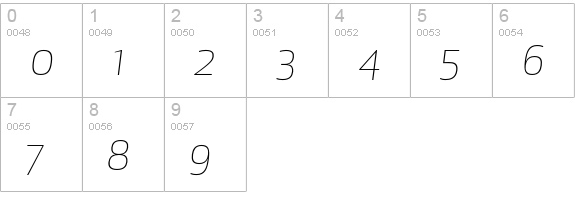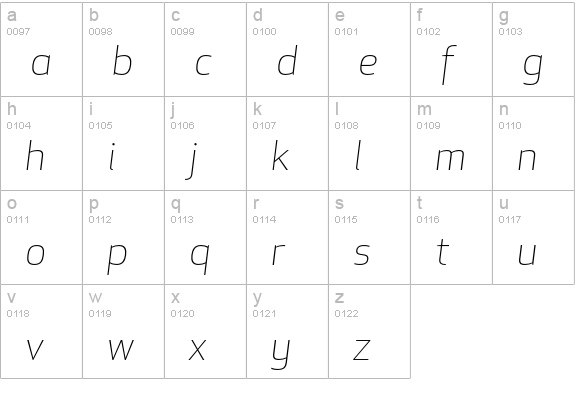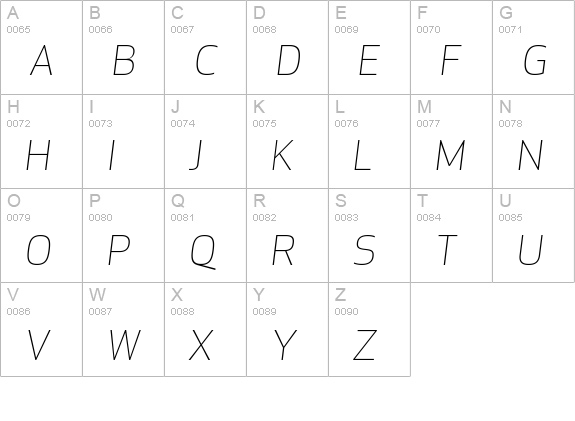
ApexNew-LightItalic Font Details
Introducing ApexNew-LightItalic, a sleek and sophisticated font that exudes elegance and modernity. Its delicate curves and graceful strokes make it perfect for adding a touch of sophistication to any project. The light italic style gives a subtle and refined appearance, making it ideal for a wide range of design applications. This beautiful font is not only stylish but also versatile, making it suitable for various design projects such as branding, editorial design, and web design. Whether you are creating a logo, a poster, or a website, ApexNew-LightItalic will bring a touch of class to your work. And the best part? ApexNew-LightItalic is available for free download at FontsMarket.com. So go ahead and elevate your designs with this stunning font today!